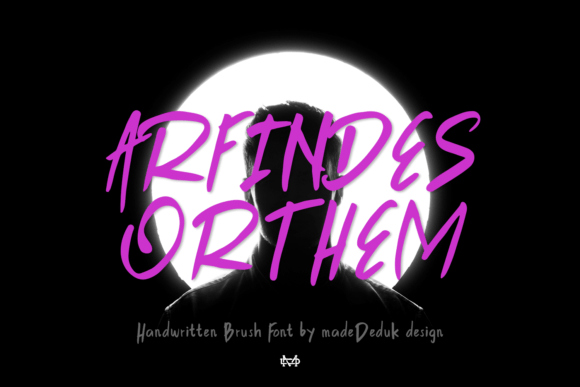
The Ultimate Design Sidekick: Arfindes Orthem Font
I’ll never forget the time I was working on a project for a quirky client who wanted a font that was both playful and sophisticated. I spent hours scouring the internet for the perfect match, but nothing seemed quite right. That was until I stumbled upon Arfindes Orthem, a cool and quirky brush handwritten font that has since become a staple in my font library. In this article, I’ll share my love for Arfindes Orthem, its features, and how to make the most of it in your designs.
So, what makes Arfindes Orthem so special? Here are a few things I love about this font:
- ✨ Unique and quirky personality that adds a touch of whimsy to any design
- 💫 Works beautifully for a variety of design projects, from branding to invitations
Of course, no font is perfect, and Arfindes Orthem has a few small quirks:
- 🤔 Some users may find the font a bit too casual for very formal projects
One of the best things about Arfindes Orthem is its OpenType features, which can be accessed in Canva by using the font’s built-in glyphs. For example, you can use the font’s stylistic alternates to create a more personalized look.
In Photoshop and Illustrator, you can also experiment with different font styles, such as bold and italic, to add more depth to your design.
Arfindes Orthem was created with the goal of bringing a touch of whimsy and personality to design projects. The font’s unique personality is inspired by the world of art and design, where creativity and self-expression know no bounds. Whether you’re a designer, crafter, or creative hobbyist, Arfindes Orthem is the perfect addition to your font library.
| What makes Arfindes Orthem unique? | Arfindes Orthem’s quirky personality and highly legible design make it a standout font. |
| Is Arfindes Orthem suitable for formal projects? | While Arfindes Orthem is a casual font, it can still work well for formal projects if paired with more traditional design elements. |
| Is Arfindes Orthem available in different font styles? | Yes, Arfindes Orthem comes in a range of font styles, including bold and italic. |
In conclusion, Arfindes Orthem is a versatile and charming font that can add a touch of personality to any design project. With its unique personality, highly legible design, and range of OpenType features, it’s a wonderful asset to any font library. Whether you’re a designer, crafter, or creative hobbyist, Arfindes Orthem is sure to become a favorite.